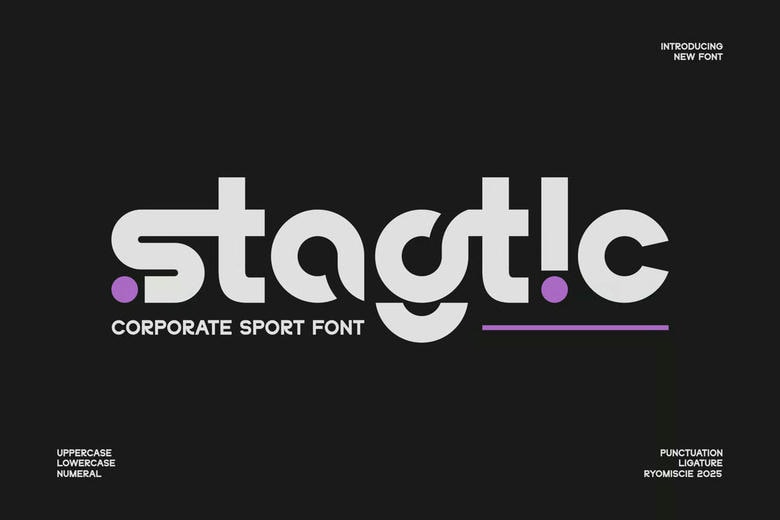
Stagtic Font
Stagtic is a modern, bold and authentic display font. The font is suitable for any branding project like logo, esport, and many more. outstanding in a wide range of contexts.
Stagtic Sans Serif Font